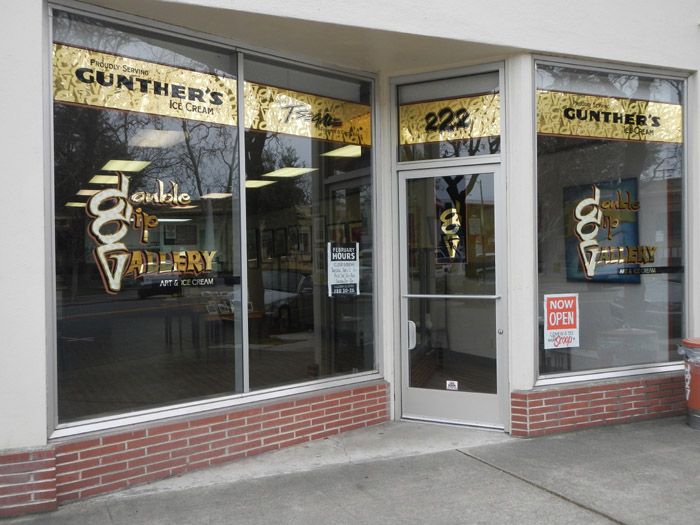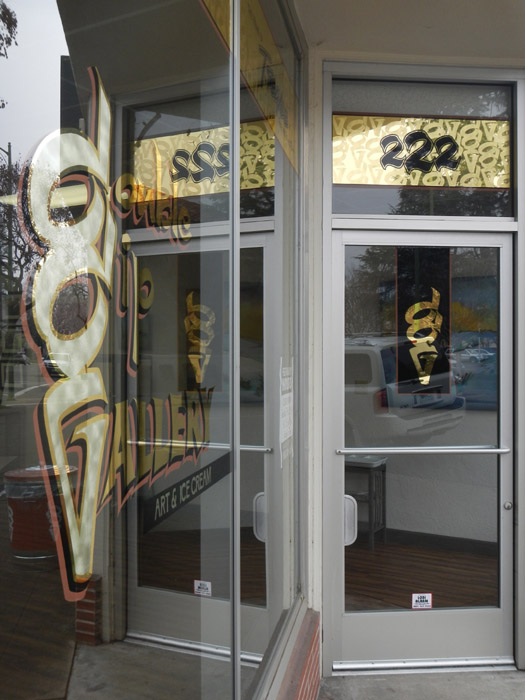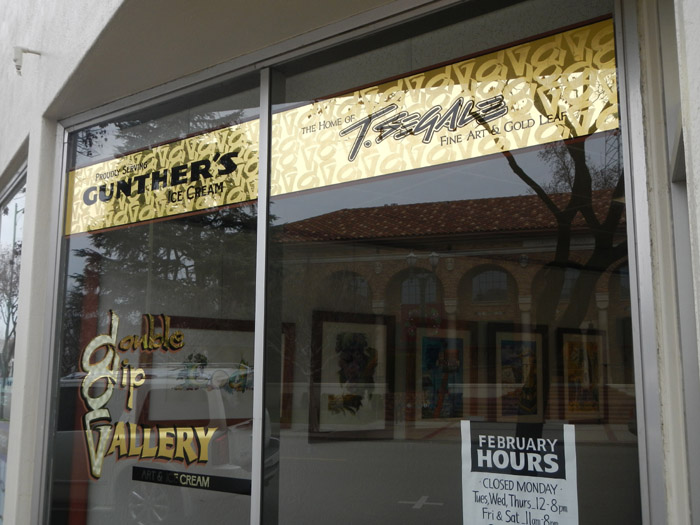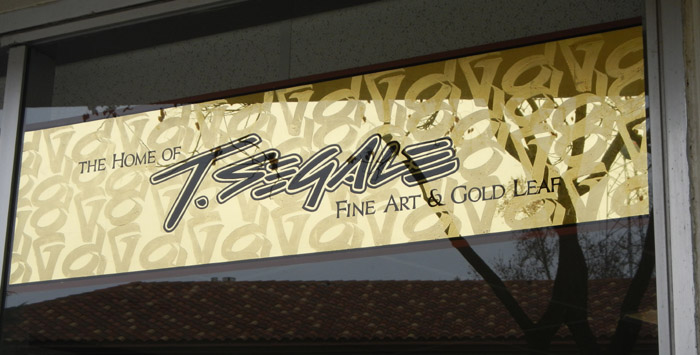
Double Dip Gallery
Most recent gold leaf window is for myself. Decided to open my own gallery, two blocks from my home and shop,
display my watercolor paintings and gold leaf work. To lure visitors inside, I added a 16 flavor ice cream cabinet at the back of the 50' deep gallery. After opening a few weeks ago, I discussed three future commercial sign jobs, one possible mural, sold four paintings, commissioned to paint another, and a lot of ice cream. I'm set up to work in the gallery on commercial or fine art pieces.
After designing the logo, I felt the amount of gold leaf for my place would not be limited, within design reason.
Looks very nice. I really like the matte pattern in the band. Hope you have great success in your new venture.
Wow, that's a brilliant idea...Ice-cream and art!. who'd a thunck it?
I love the logo and the shape of the lettering "double dip"
i'm just passing by on a late friday night...and all i can say is WOW ....i'll go back and take a look
This could be a great move to get your art in the public's eye as well as your other talents. Best of all you can be busy on jobs,
The best part is it is two blocks from my home/studio.
Two more signs are in the plans, I'll add here when completed.
Congratulations Tony :!: The front looks absolutely wonderful and you should get a lot of foot traffic right there on Pine St. Glad to see that it is paying off in selling your artwork and more sign jobs. Two blocks eh? You can walk to work. :mrgreen:
Fantastic idea Tony! Your shop front looks amazing, the very best of luck to you.
Wow Tony....that looks great....and you are offering two of my favorite things.....Fine art and ice cream.....YUMMY! Best of luck in your new digs.